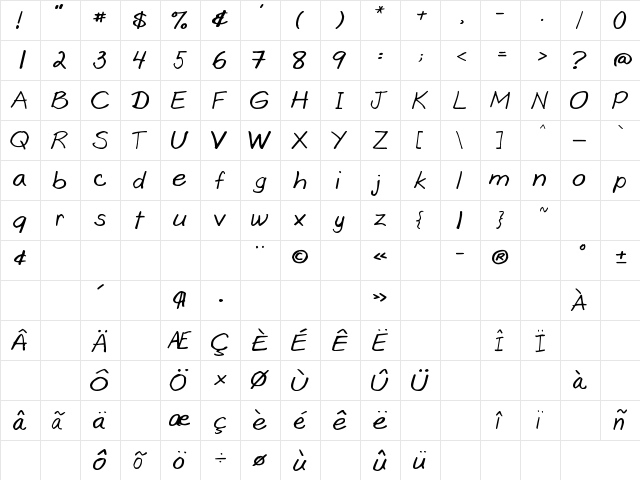
Goobascript Regular
| Designer | Gooba |
Design Context for Goobascript Typeface
Goobascript flows with the natural rhythm of handwritten lettering, making it ideal for designs that call for warmth and personal expression.
Font Pairing: Combine Goobascript with a simple geometric sans for maximum contrast — the tension between flowing curves and clean structure is a classic typographic pairing.
Pro Tip: Pair Goobascript with a clean sans-serif for supporting text. The contrast between fluid script and geometric structure creates an elegant typographic hierarchy.